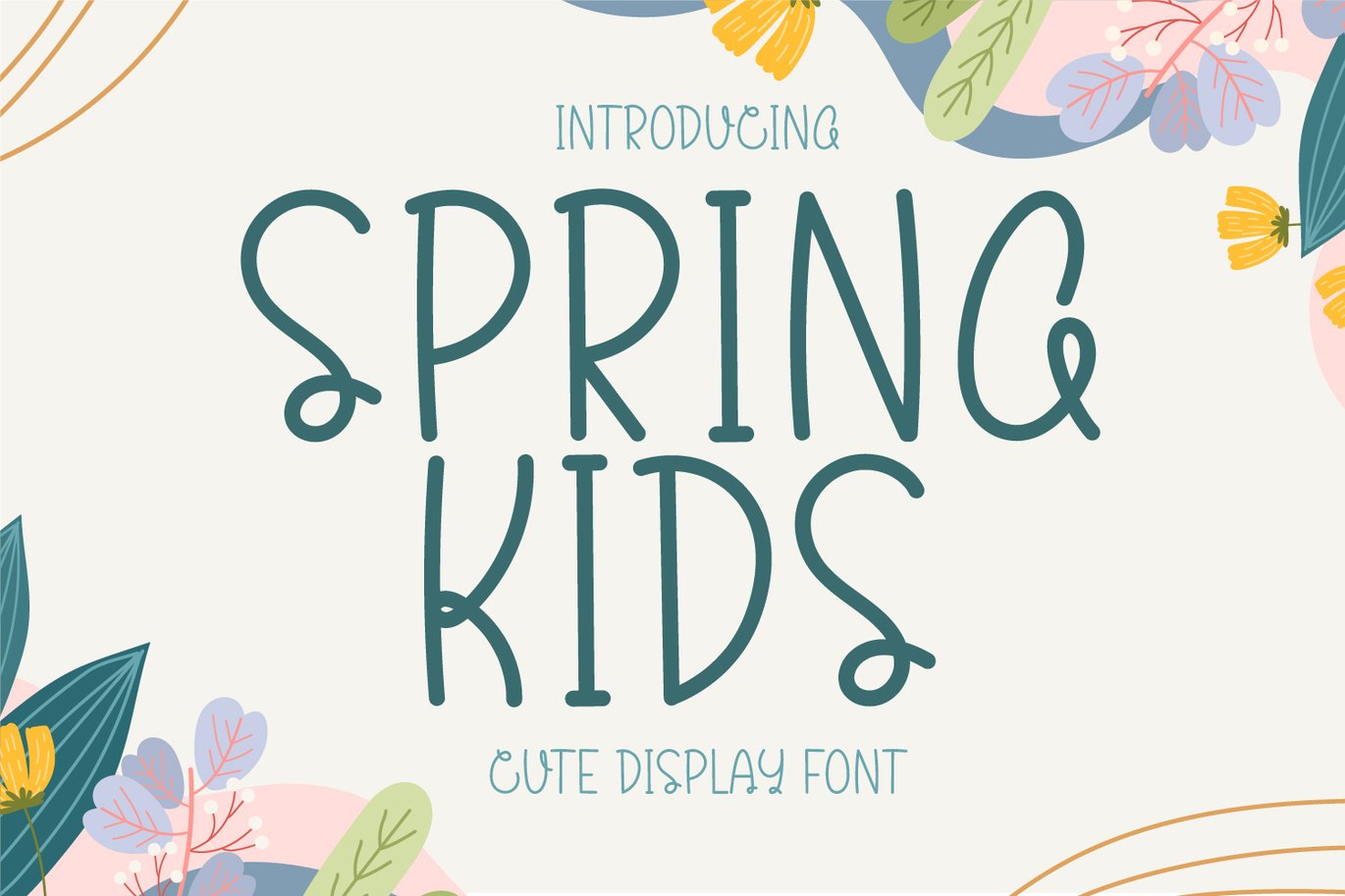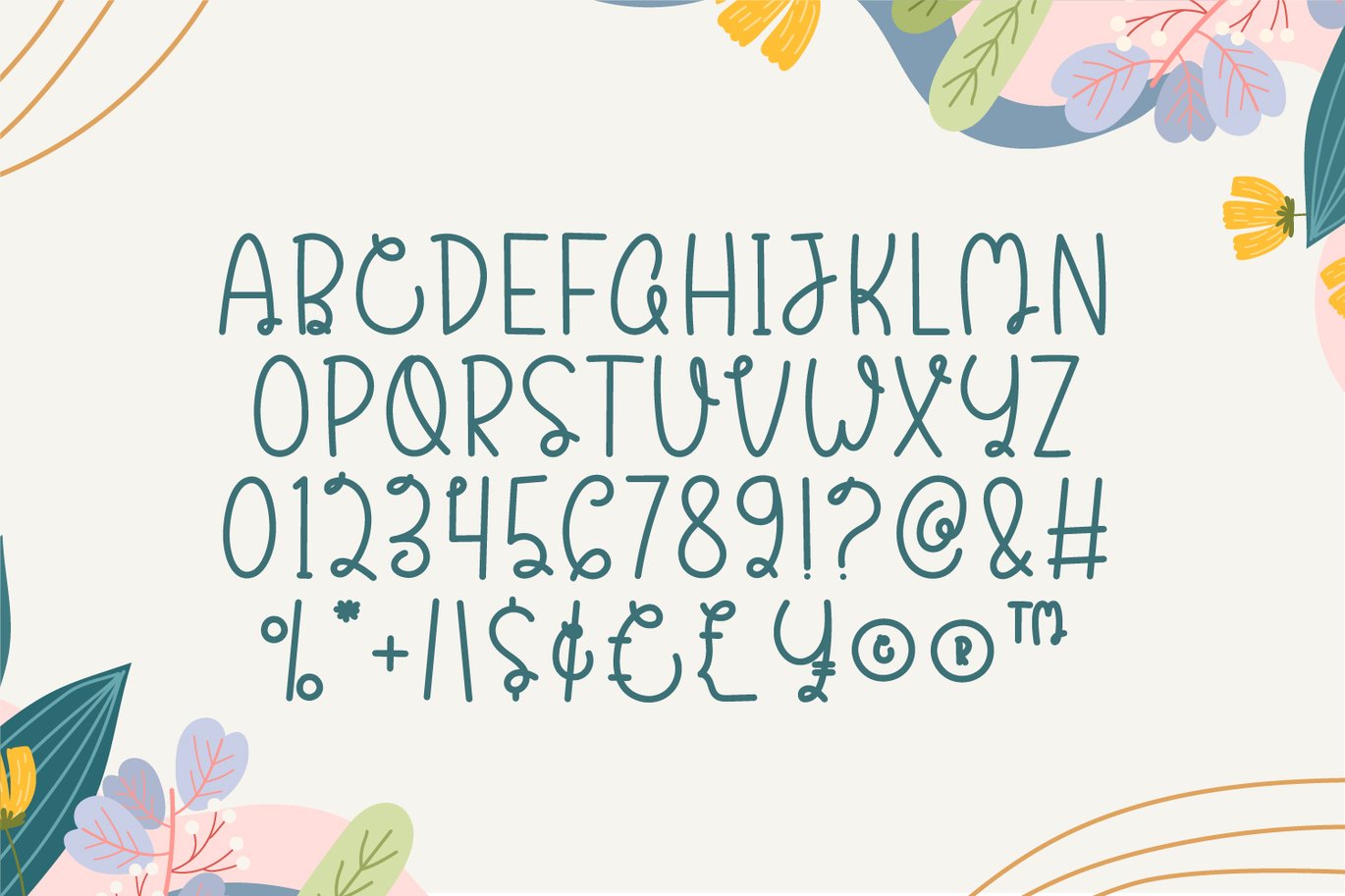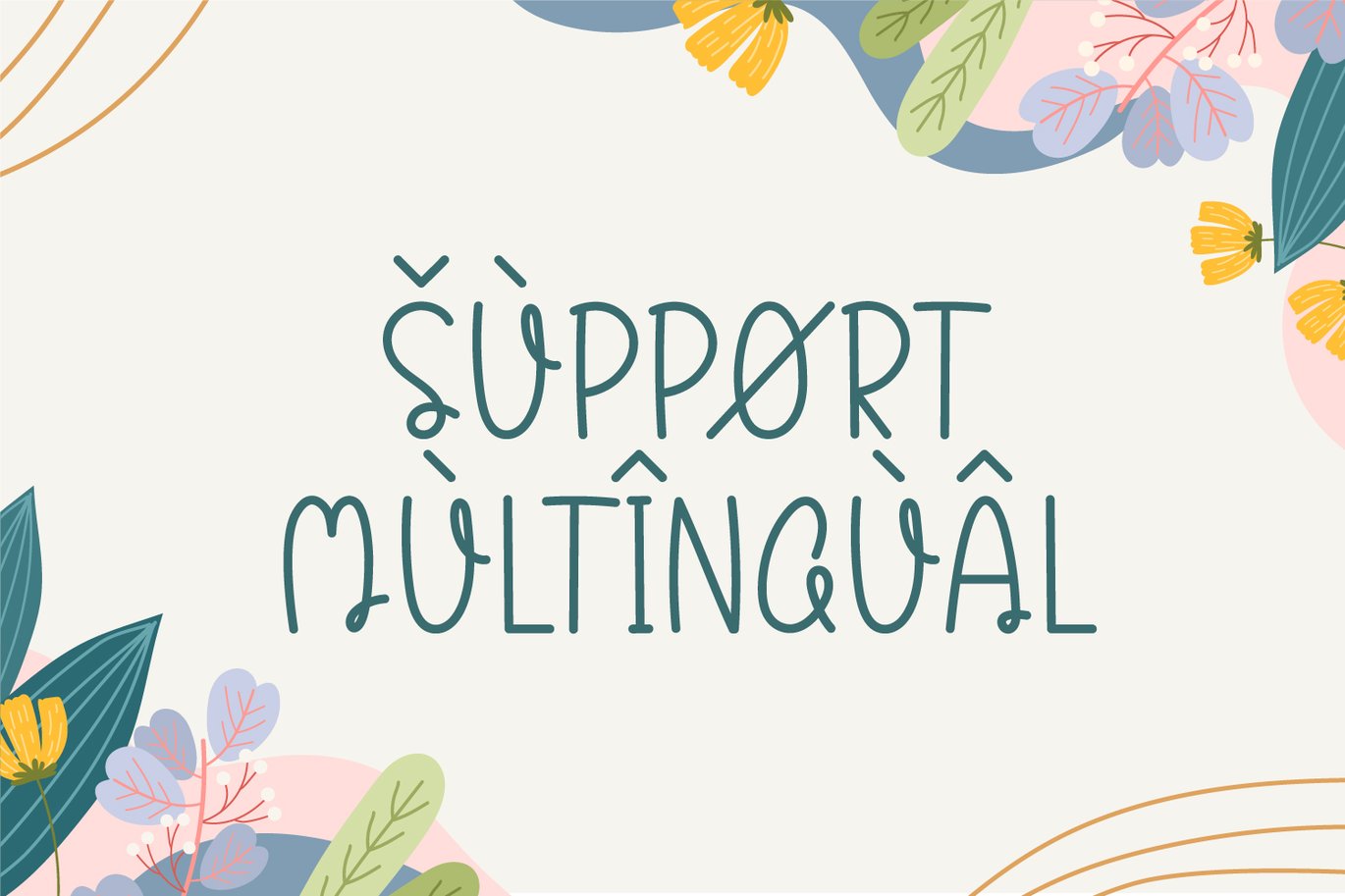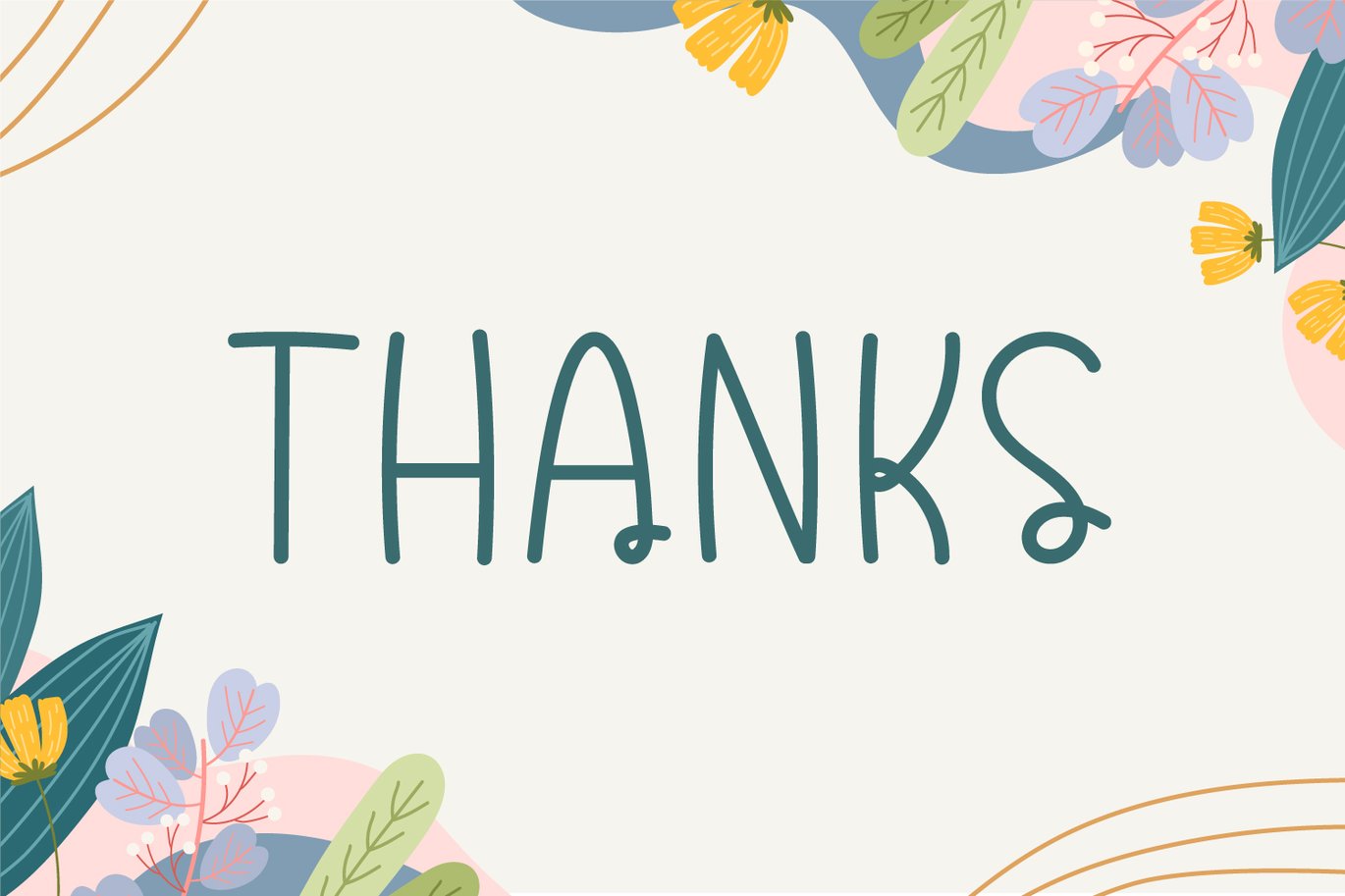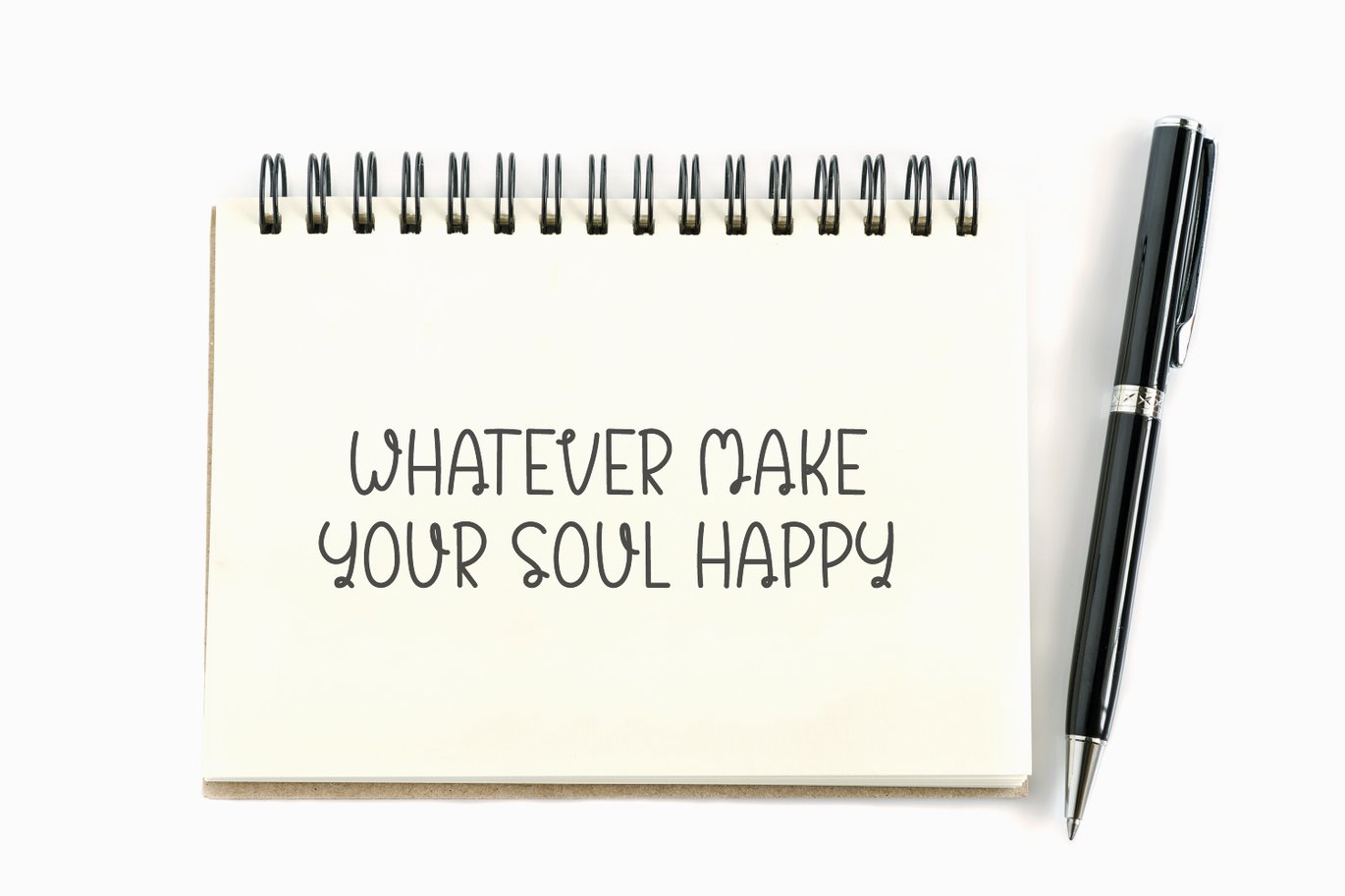
Spring Kids – Handwritten Display Font
Introducing Spring Kids – Handwritten Display Font
Spring Kids is a cute, natural, and friendly display font, that can be used for all chalkboard quotes or teaching material. Spring Kids is perfect for children-themed designs, especially when combined with bright colors.